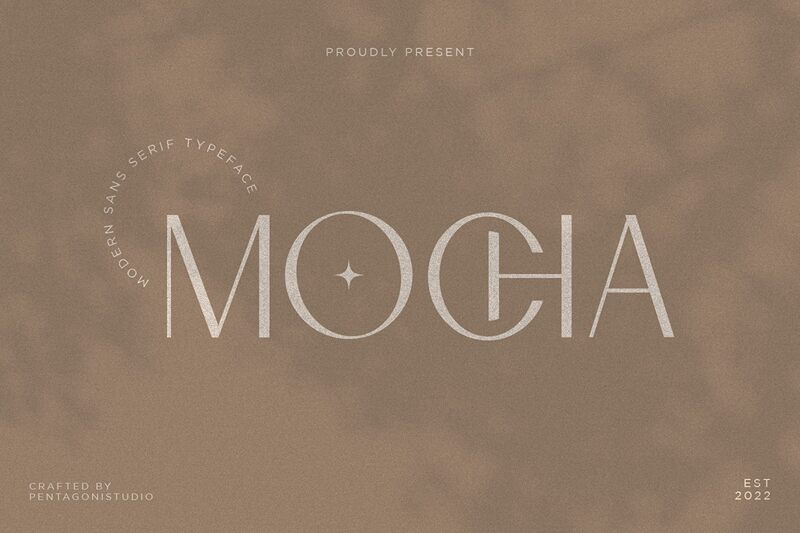
Mocha font, crafted by Pentagonistudio, is a sleek and elegant sans serif typeface featuring a light weight. Its modern and minimalistic design makes it ideal for projects that require a touch of sophistication. The fine lines and clear letterforms enhance readability while adding a chic flair.
Perfect for branding, fashion labels, and editorial designs, Mocha stands out with its understated elegance. Whether used for headlines or body text, this free font offers versatility that elevates any design project.